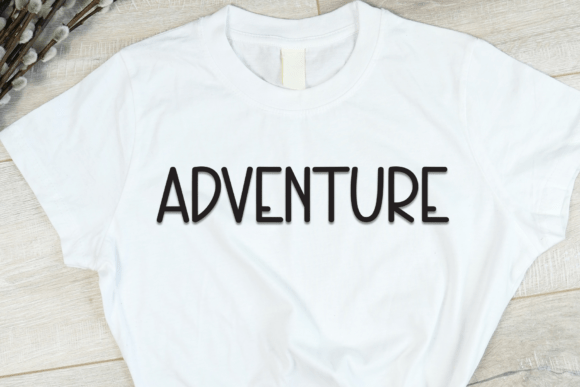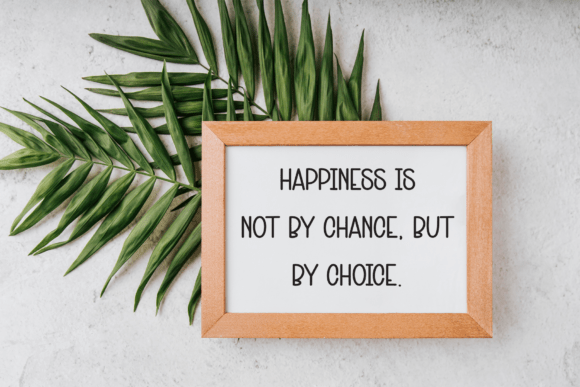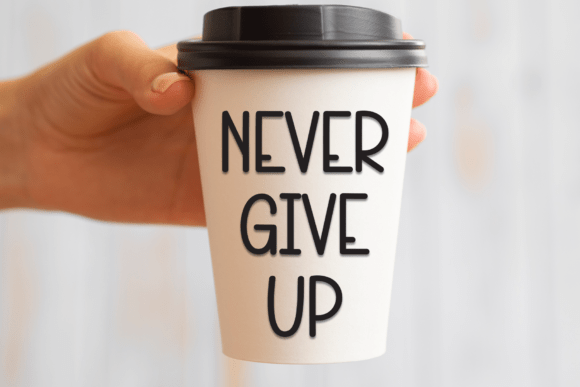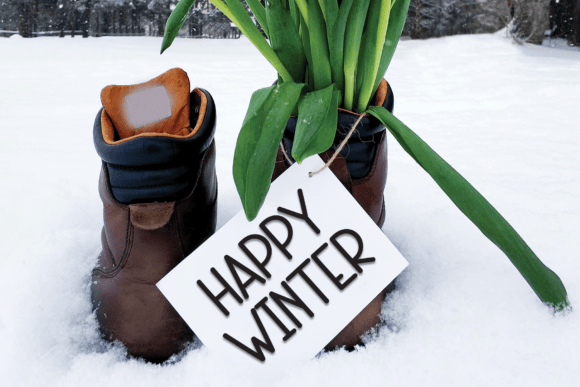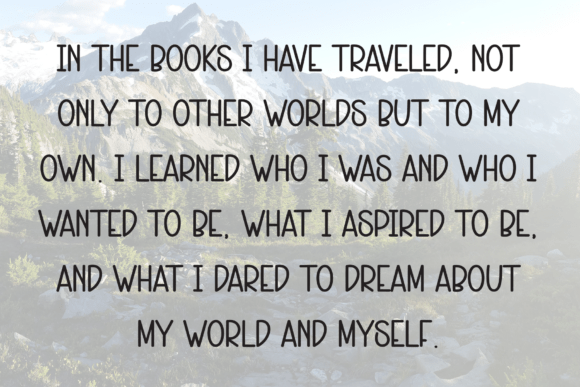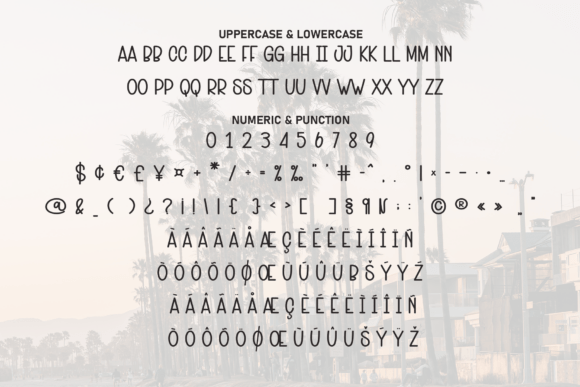
Introducing California Font: The Perfect Blend of Simplicity and Friendliness
In the world of typography, fonts play a crucial role in conveying the tone and personality of a brand or design. With numerous font options available, finding the perfect one that combines simplicity with a friendly, approachable vibe can be a daunting task. However, if you’re looking for a font that embodies modern handwritten typography with a polished finish, look no further than California Font.
What is California Font?
California Font is a casual and neat display font that has been carefully crafted to capture the essence of modern handwritten typography. Featuring clean lines, balanced letterforms, and subtle rounded edges, this font exudes a sense of warmth and approachability. Its crisp structure and versatile style make it an ideal choice for a wide range of design applications, from branding and headlines to packaging and digital content.
Key Features of California Font
- Clean Lines: California Font boasts clean lines that give it a modern and sleek appearance. This feature makes it perfect for designs that require a touch of sophistication and elegance.
- Balanced Letterforms: The font’s balanced letterforms ensure that each character is harmonious and visually appealing. This balance contributes to the font’s overall readability and aesthetic appeal.
- Subtle Rounded Edges: The subtle rounded edges of California Font add a touch of warmth and friendliness to the font. This feature makes it perfect for designs that require a more approachable and inviting tone.
- Versatile Style: California Font is a versatile font that can be used in a variety of design applications. Its adaptability makes it a valuable asset for designers who require a font that can keep up with their creative demands.
Why Choose California Font?
So, why should you choose California Font for your design projects? Here are a few compelling reasons:
- Warm and Inviting: California Font adds a warm and inviting touch to any design. Its friendly and approachable vibe makes it perfect for brands that want to connect with their audience on a personal level.
- Highly Readable: The font’s clean lines and balanced letterforms ensure that it is highly readable, even at smaller font sizes. This feature makes it ideal for digital content, such as blog posts, social media updates, and website headings.
- Perfect for Branding: California Font is an excellent choice for branding projects. Its unique blend of simplicity and friendliness makes it perfect for creating a strong and memorable brand identity.
- Easy to Pair: California Font is easy to pair with other fonts, making it a versatile addition to any designer’s font library.
Design Applications for California Font
California Font is a versatile font that can be used in a wide range of design applications, including:
- Branding: Use California Font to create a strong and memorable brand identity that resonates with your target audience.
- Headlines: California Font is perfect for headlines, as its clean lines and balanced letterforms make it highly readable and visually appealing.
- Packaging: Add a touch of warmth and friendliness to your packaging designs with California Font.
- Digital Content: Use California Font to create engaging and readable digital content, such as blog posts, social media updates, and website headings.
In conclusion, California Font is a unique and versatile font that combines simplicity with a friendly, approachable vibe. Its clean lines, balanced letterforms, and subtle rounded edges make it perfect for a wide range of design applications. Whether you’re a designer or crafter, California Font is an excellent addition to your font library. So, why not give it a try and see how it can elevate your designs to the next level?